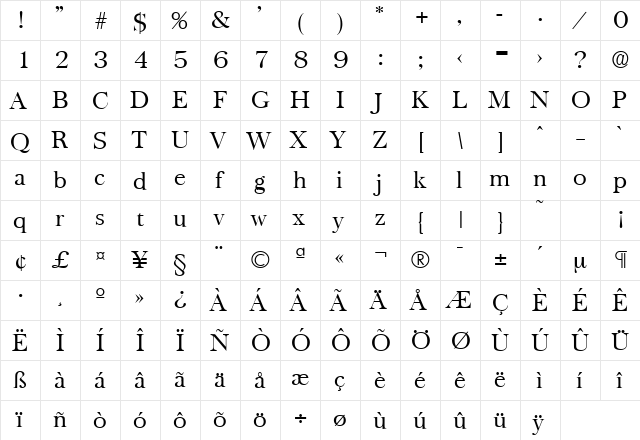
Baskerville-Serial-Light Regular
Design Context for Baskerville-Serial-Light Typeface
Baskerville-Serial-Light offers clean, dependable letterforms without strong stylistic allegiance, making it a practical choice for designers who need flexibility. Its slender proportions lend an understated elegance to any composition.